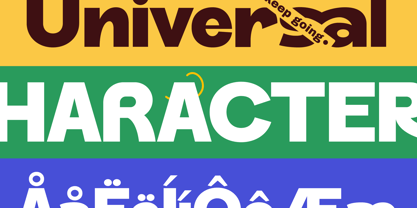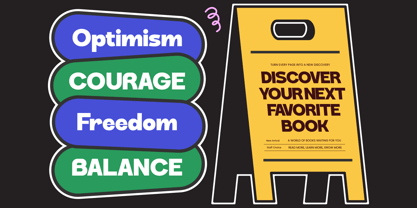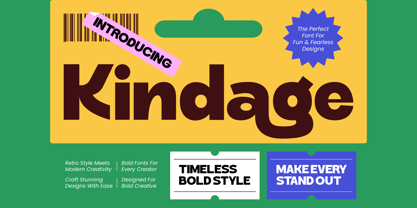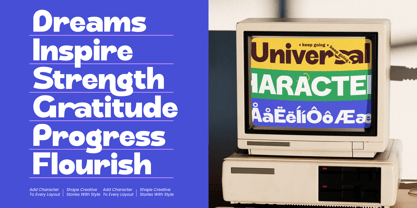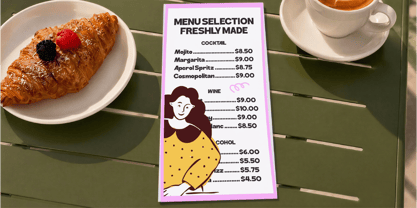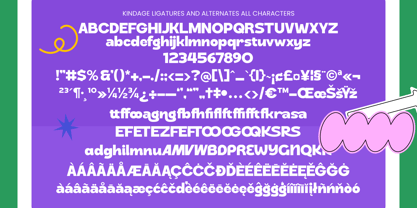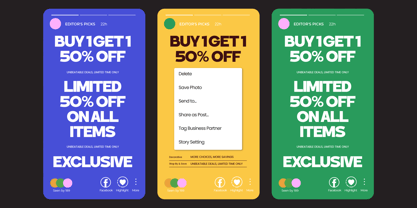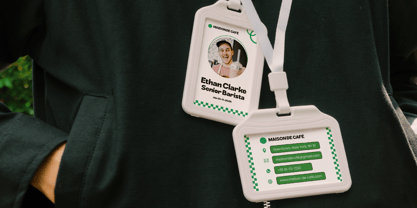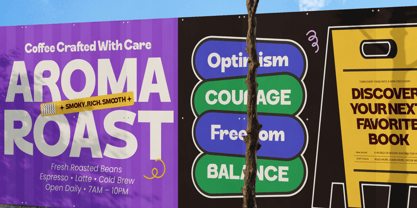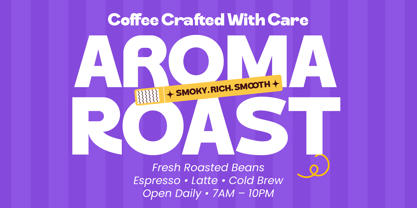
Kindage
by Timelesstype Studio
The Kindage Font Family was designed by Heru Utama Putra and published by Timelesstype Studio. Kindage contains 2 styles and family package options. More about this family
Step into the world of Kindage, a masterpiece of soft geometry and vibrant personality designed to elevate your visual storytelling. This typeface balances a friendly disposition with a commanding presence that captures attention in an instant.
Born from a love for vintage grocery packaging and mid-century aestheticism, the inspiration behind this font lies in the intersection of nostalgia and modern minimalism. It captures the essence of a warm, inviting atmosphere, perfect for brands that want to feel established yet fresh.
The modern serif display attributes of this typeface deliver a massive branding impact while maintaining the sophisticated air of luxury typography. Even with its rounded edges, it provides the weight of a high-contrast serif and the clarity of a top-tier editorial font for discerning designers.